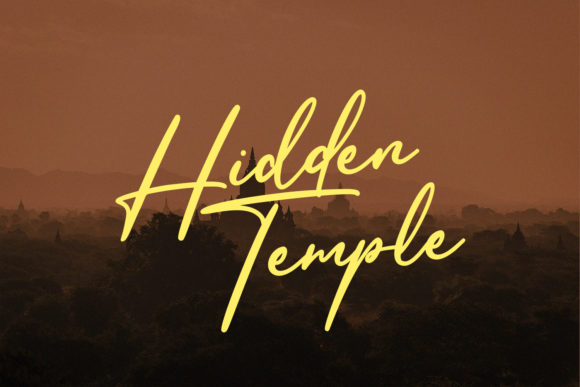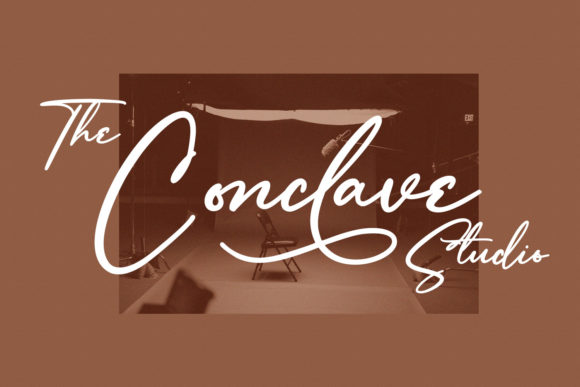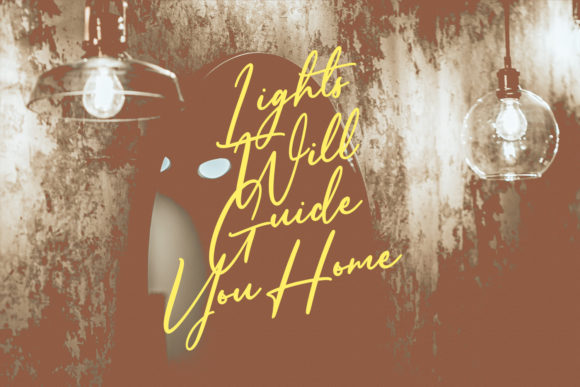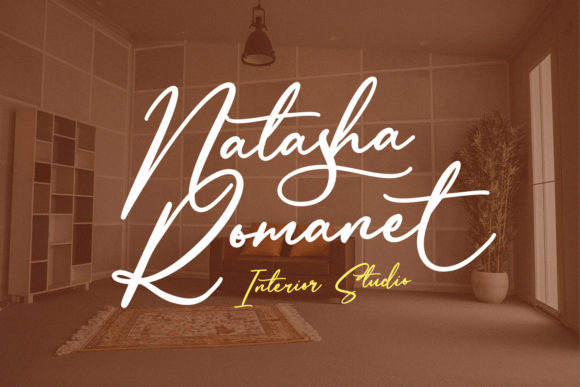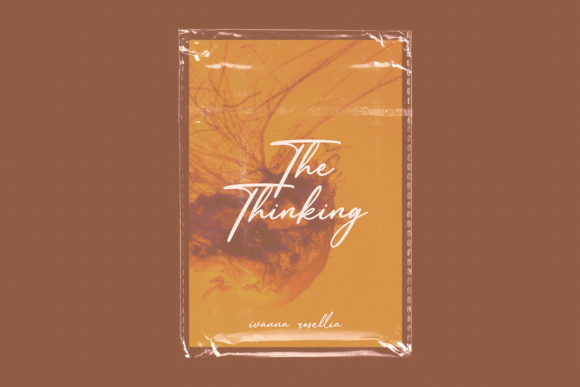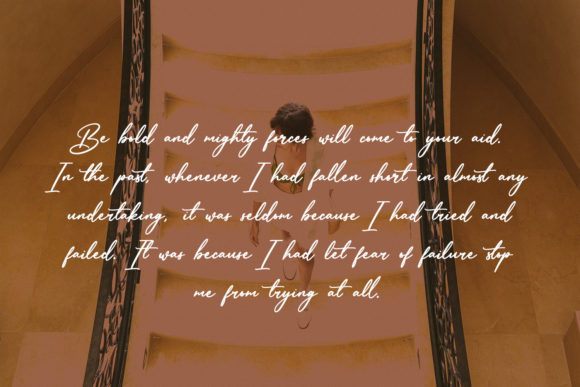
About Reliances Script Font
Reliances Script is a stylish and elegant handwritten font. Its distinct and well balanced letters make this font a masterpiece. Fall in love with its incredibly versatile style and use it to create spectacular designs!